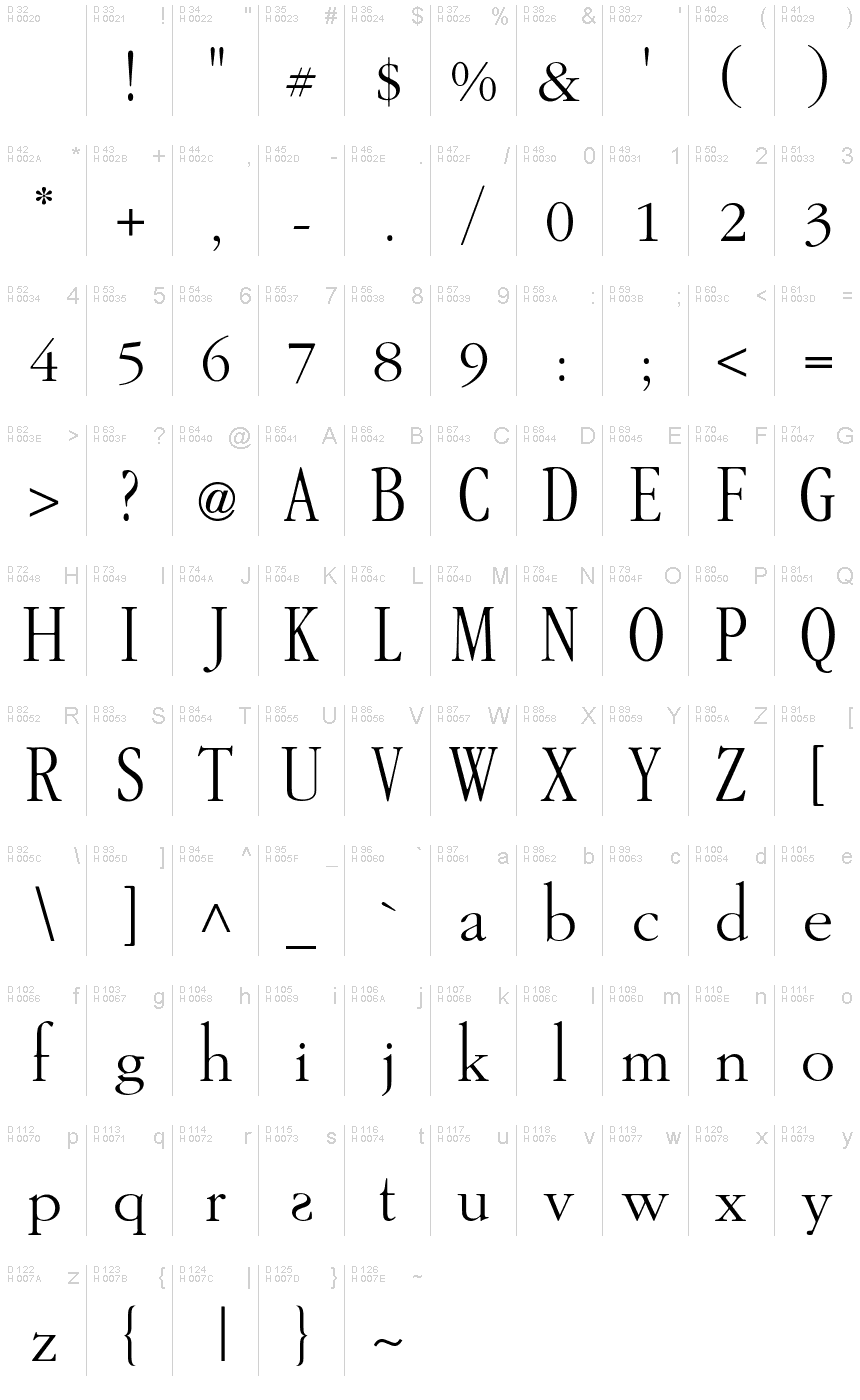
Gar-A-MondTall Light
Embrace the slender elegance of Gar-A-Mond Tall Light, a typeface crafted by Murat Yegul that redefines sophistication. This semi-light member of the Gar-A-Mond Tall family boasts a condensed and elongated serif style, offering a contemporary yet timeless aesthetic.
Perfect for designers aiming to instill their projects with an air of haute couture or to elevate reading experiences with its high legibility, Gar-A-Mond Tall Light promises versatility across editorial designs, branding, and upscale advertising campaigns. Its distinct character ensures your creations will stand out with grace and precision.